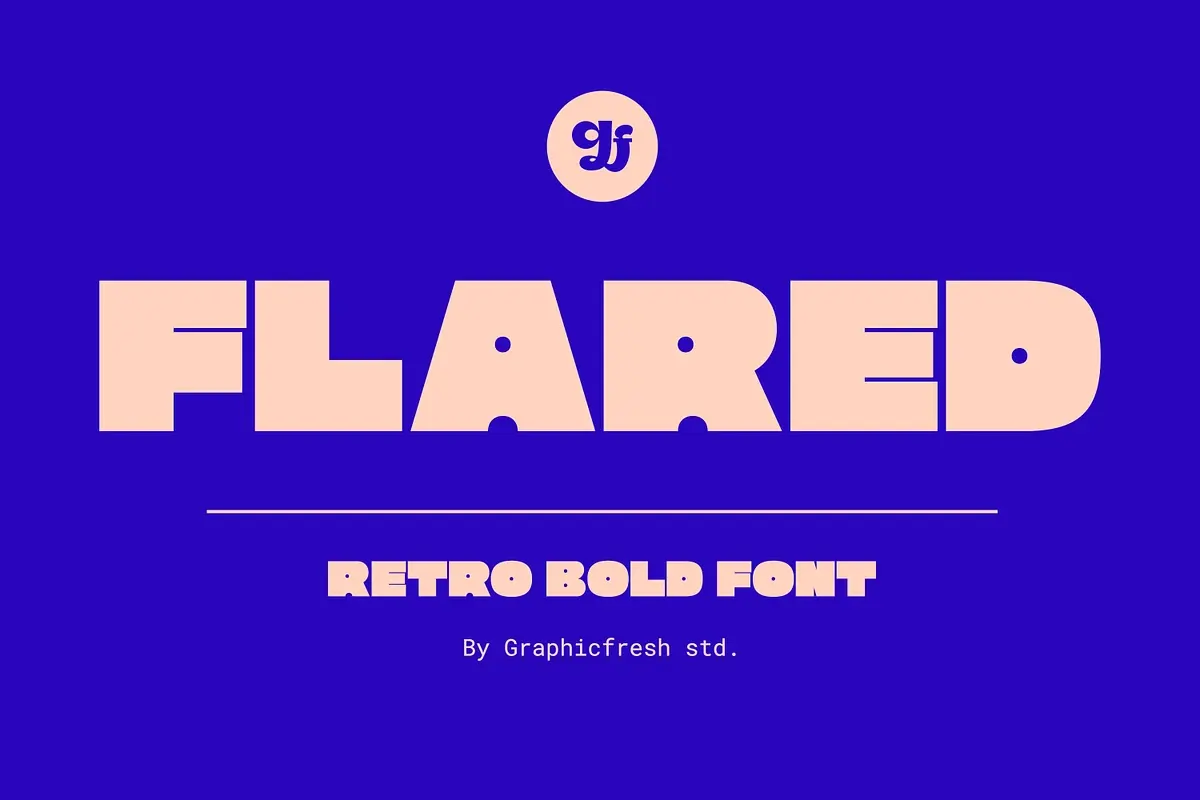
Flared - The Bold Retro Font Free Download is a vibrant, attention-grabbing typeface that brings the spirit of the ’70s and ’80s into your modern designs. Please note: you must purchase this font for commercial use, but you can test it through a free download. With its exaggerated curves, chunky letterforms, and nostalgic energy, Flared is perfect for posters, vintage branding, music covers, merchandise, and bold social media graphics.
This font delivers retro fun with a modern twist—ideal for creatives who love making a statement. Whether you're crafting a throwback logo or a colorful campaign, Flared - The Bold Retro Font Free Download gives your typography a dynamic, feel-good vibe. Fully compatible with Adobe Illustrator, Photoshop, and Canva, it’s super easy to use in any design workflow. Download it now for personal use and add a burst of retro-bold personality to your next creative project.